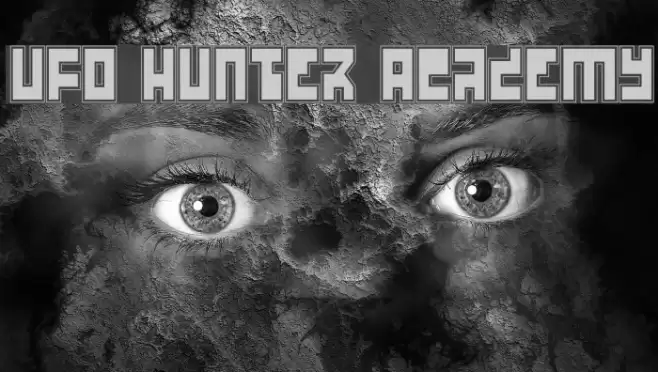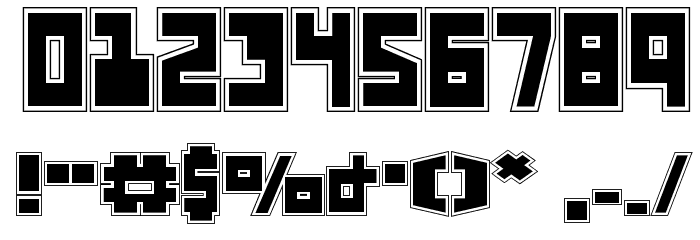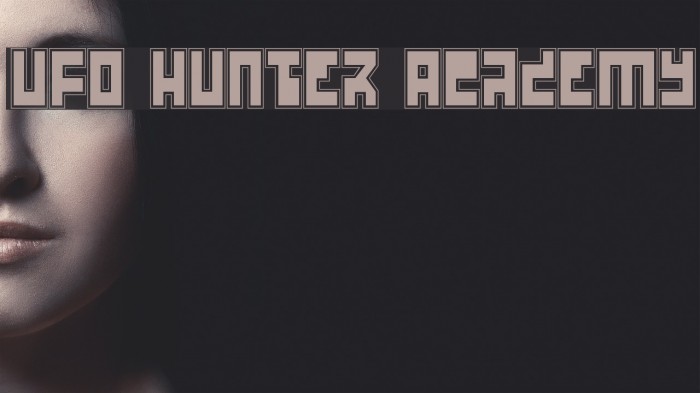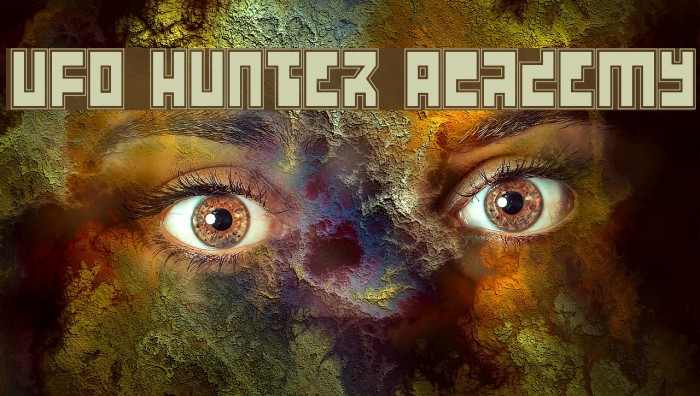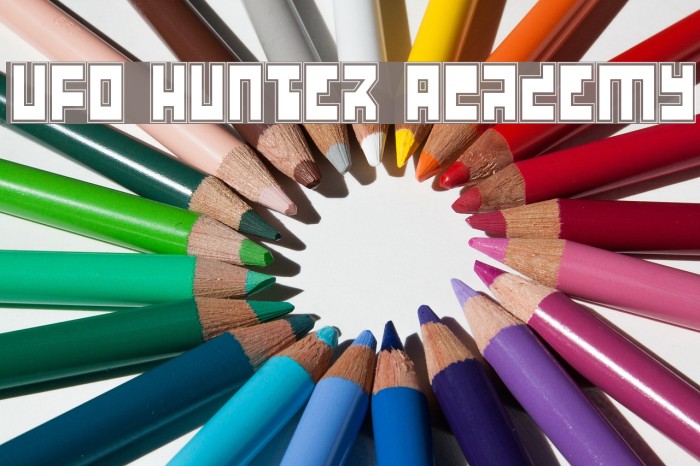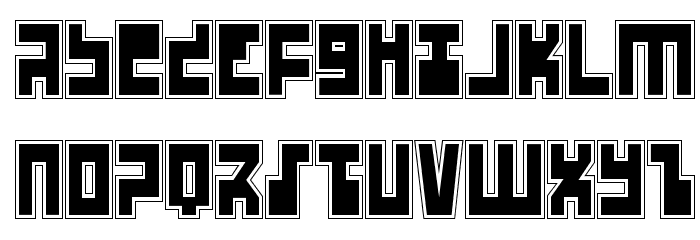
UFO Hunter Academy Font
UFO Hunter Academy Description
This font features a bold, geometric style with a futuristic and sci-fi aesthetic. The characters are constructed with thick, blocky lines and sharp angles, creating a strong visual impact. Each letter and number is outlined, adding depth and a three-dimensional effect. The design is consistent across uppercase, lowercase, and numerals, maintaining a cohesive look. Special characters are also included, matching the bold and angular theme. The font's unique style makes it stand out, ideal for projects that require a modern and edgy appearance.
A bold, geometric font with a futuristic, sci-fi style from Uncategorized fonts.
- Proposed Projects: Ideal for sci-fi themed posters, video game titles, tech branding, and futuristic event invitations.
- Overall Style: Futuristic